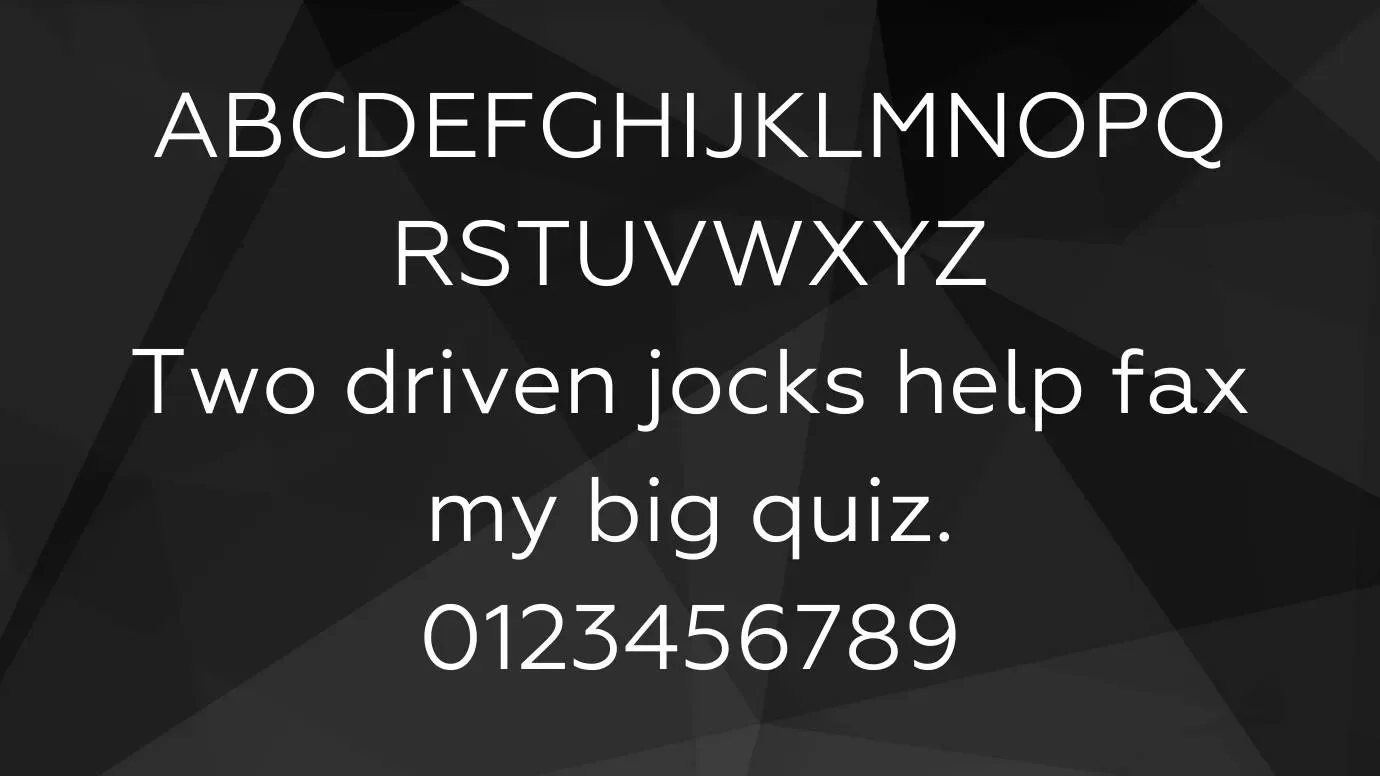
Geometria Font is a modern sans-serif typeface that was created by two famous and brilliant designers named Gayane Bagdasaryan and Vyacheslav Kirilenko. This typeface is released by a Russian font foundry known as Brownfox in 2013.
This typeface has 22 unique styles and more than eight hundred glyphs along with 1048 units per em. It has advanced features that can be useable for designing fields. It is also perfect for many astonishing logo designs.
This typeface is used for many designing industries because of its staggering shapes and bold corners characters. It is the most stylish and good-looking font that’s why many designers love this font.
Reason to Use Geometria Font
In this portion, We are representing the usage of this attractive typeface. It is used for the creation of new logo designs and designing apps like Canva, Adobe Photoshop, and so on. You can use this typeface for amazing and attractive cards designs. This typeface is useful for fancy designs and postcards design.
Due to the outstanding look and huge popularity, this font is used for homeware designs, t-shirt designs, modern characters, and so on. You can use this typeface for documentation purposes, content writing, assignments, and invoices.
Many web designers and web developers utilize this typeface for websites designing, tilings, and headings. A number of sans-serif fonts are similar to this cozy and fantastic typeface but Ford Antenna Font and Arial Font are most closest to this modern typeface.
Geometria Font Family (Includes Total 22 Types)
- Geometria-Thin
- Geometria Thin Italic
- Geometria Extra Light
- Geometria-Extra Light Italic
- Geometria Light
- Geometria Regular
- Geometria-Italic
- Geometria Medium
- Geometria Medium Italic
- Geometria-Bold
- Geometria Bold Italic
- Geometria Extra Bold
- Geometria-Extra Bold Italic
- Geometria Heavy
- Geometria Heavy Italic
- Geometria-Narrow Extra Light
- Geometria Narrow Light
- Geometria Narrow Regular
- Geometria-Narrow Medium
- Geometria Narrow Bold
- Geometria Narrow Extra Bold
- Geometria-Narrow Heavy
Alternatives of Geometria Font
What type of font is Geometria Font?
It is a modern sans-serif typeface that was created by two famous designers in 2013 known as Gayane Bagdasaryan and Vyacheslav Kirilenko.
Can I use Geometria Font for my logo designs?
Yes, you can utilize this sans-serif typeface for all types of logo designs fields. It is useful for animated logos, official logos, and websites logos designs.